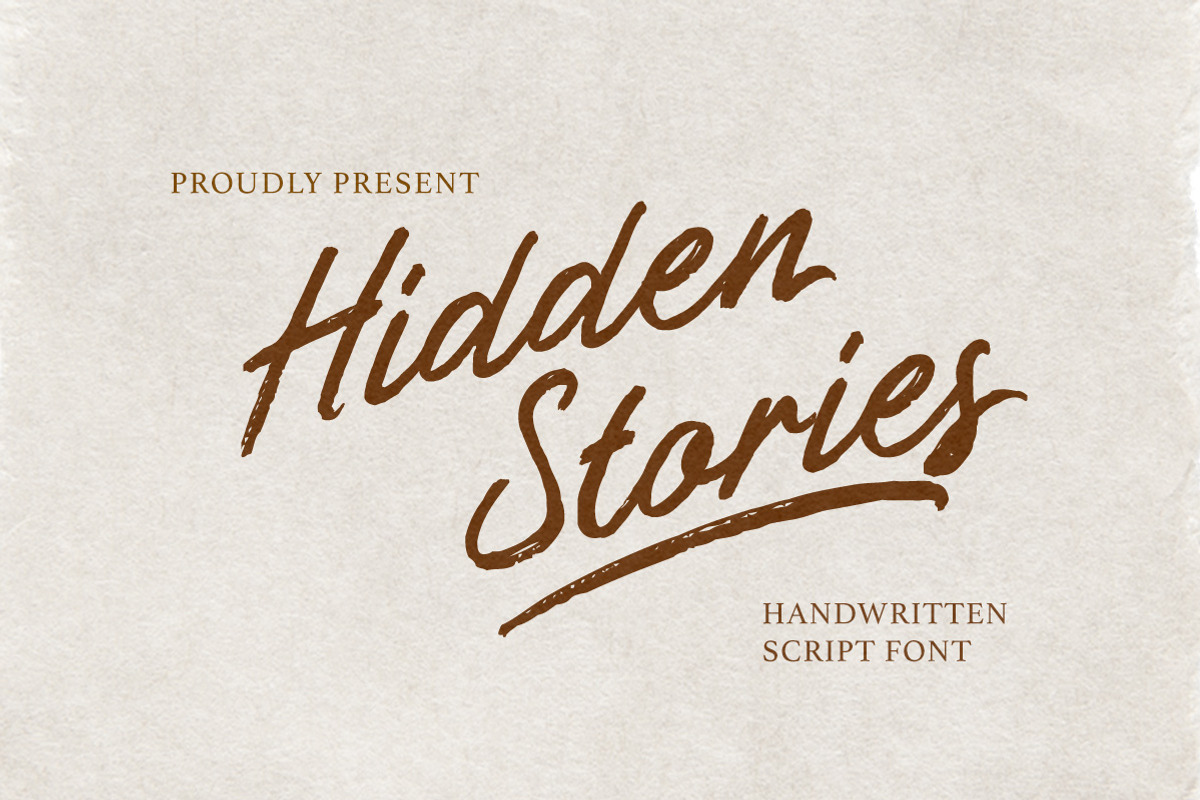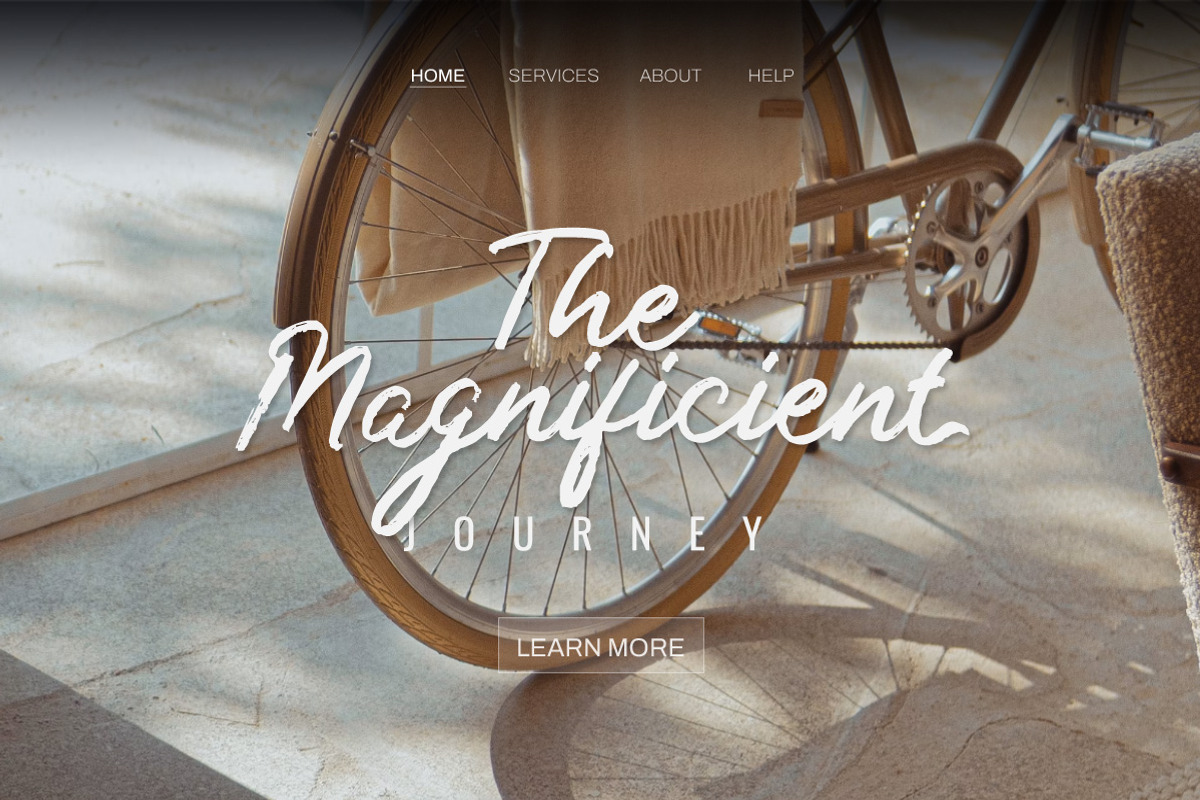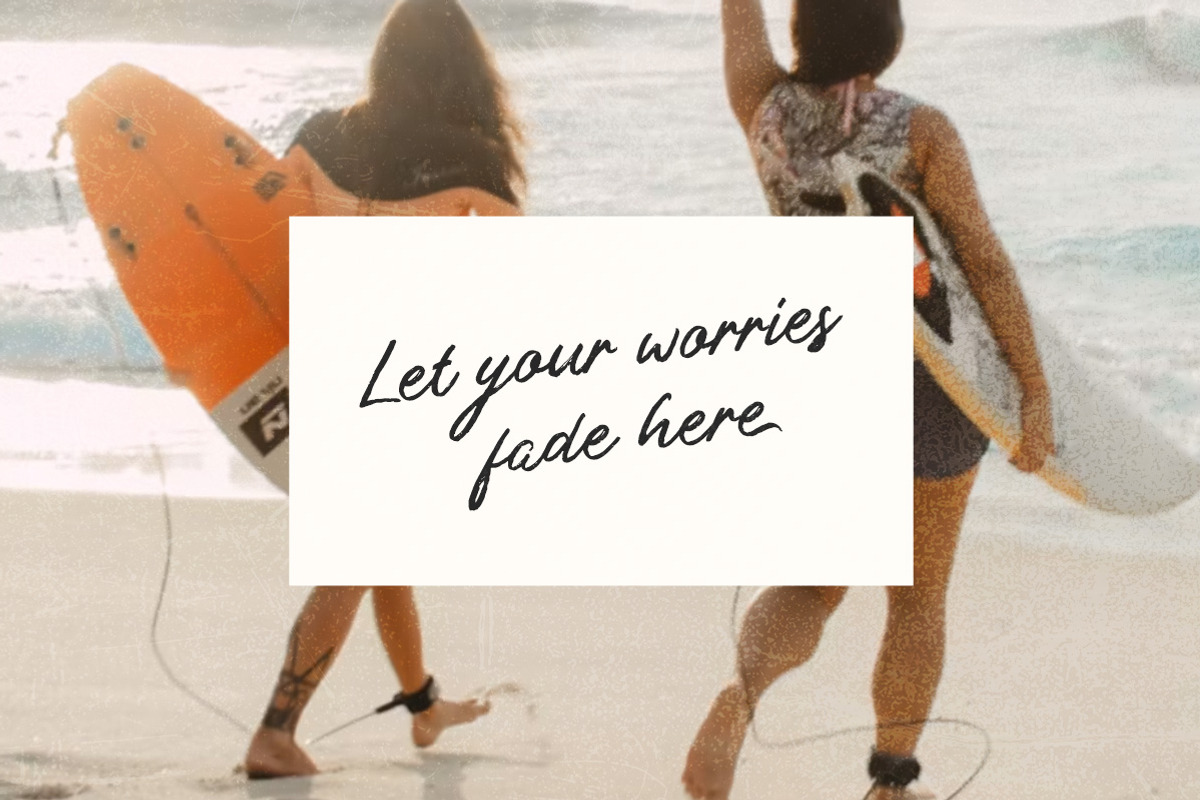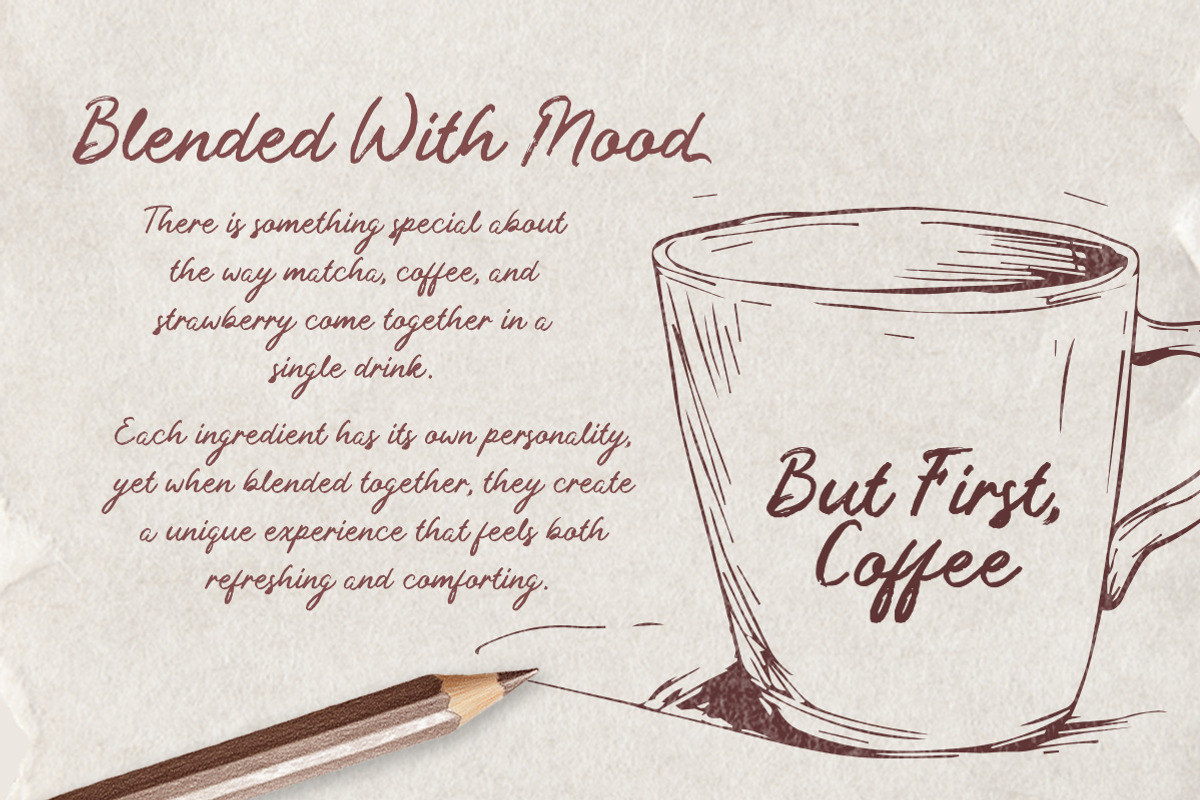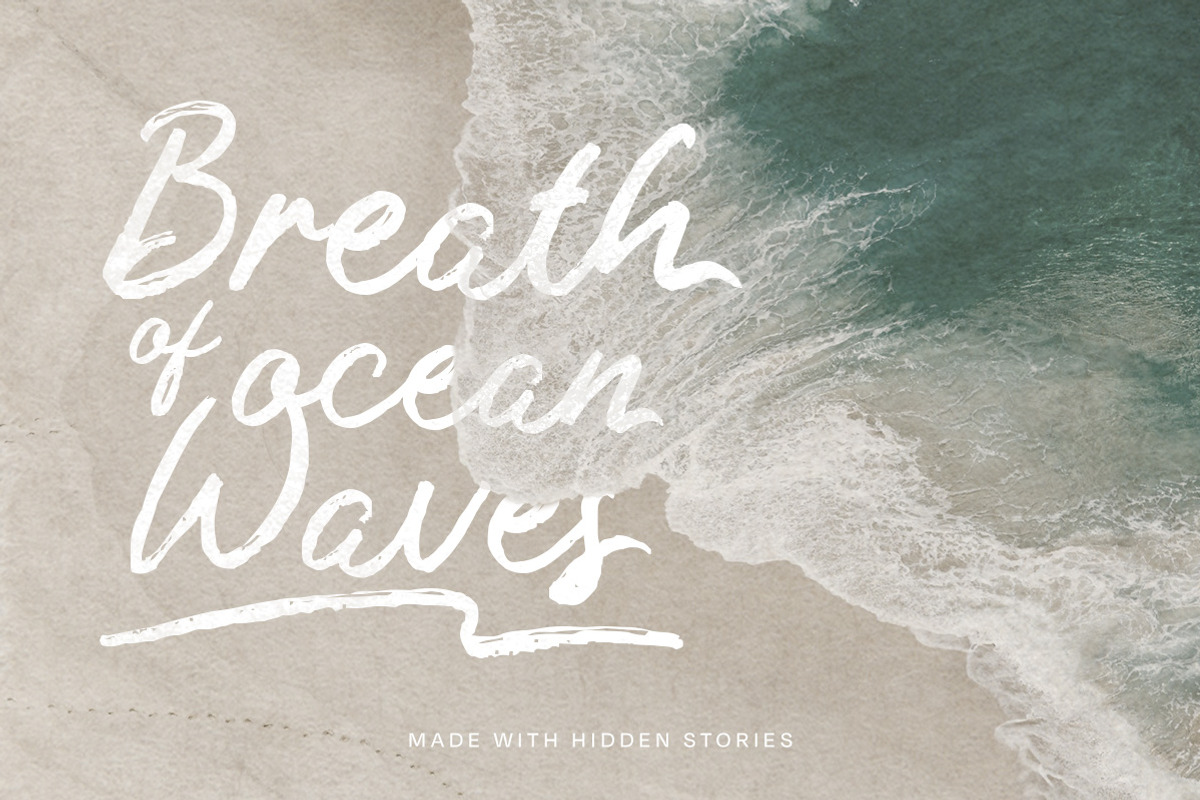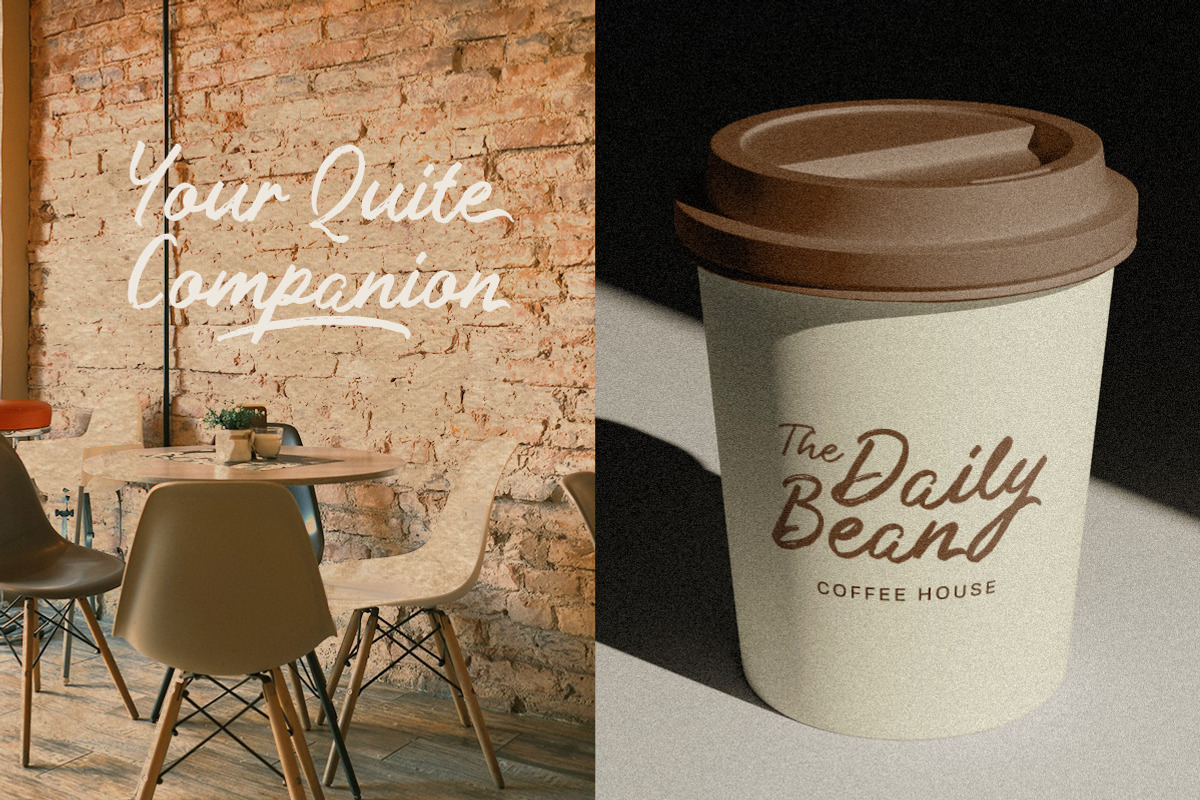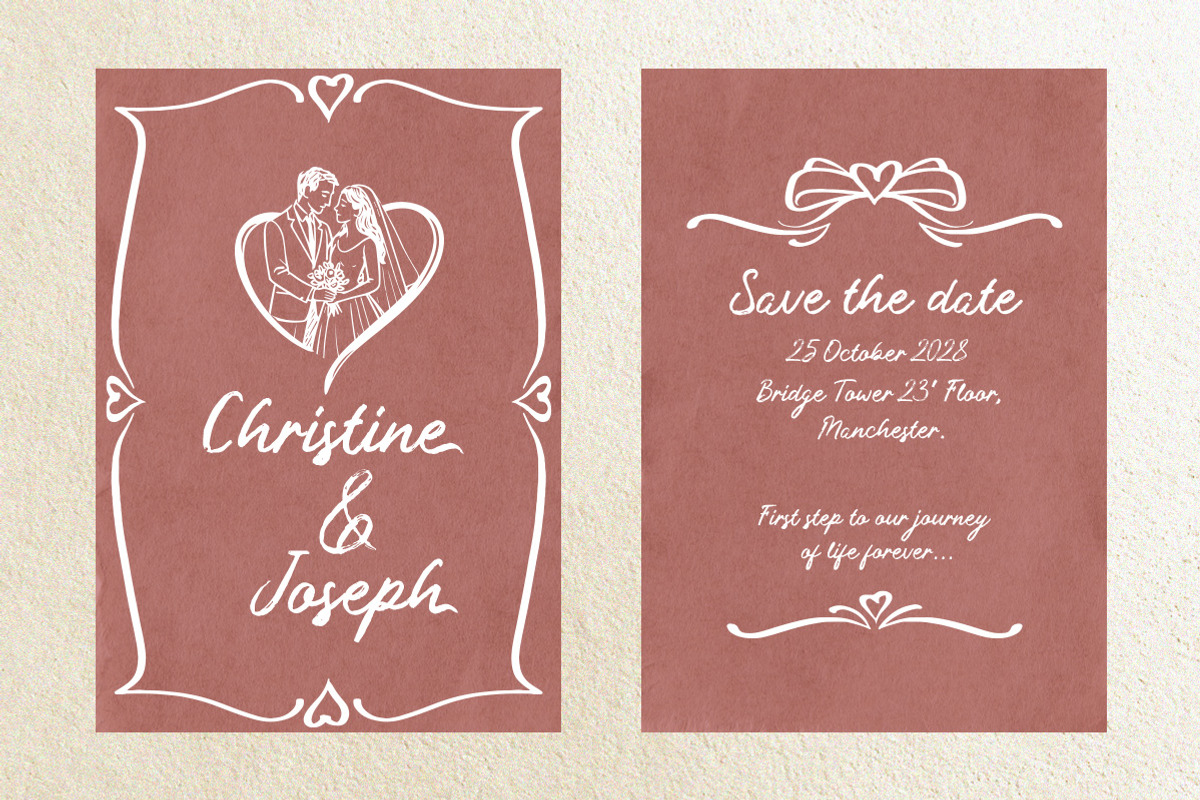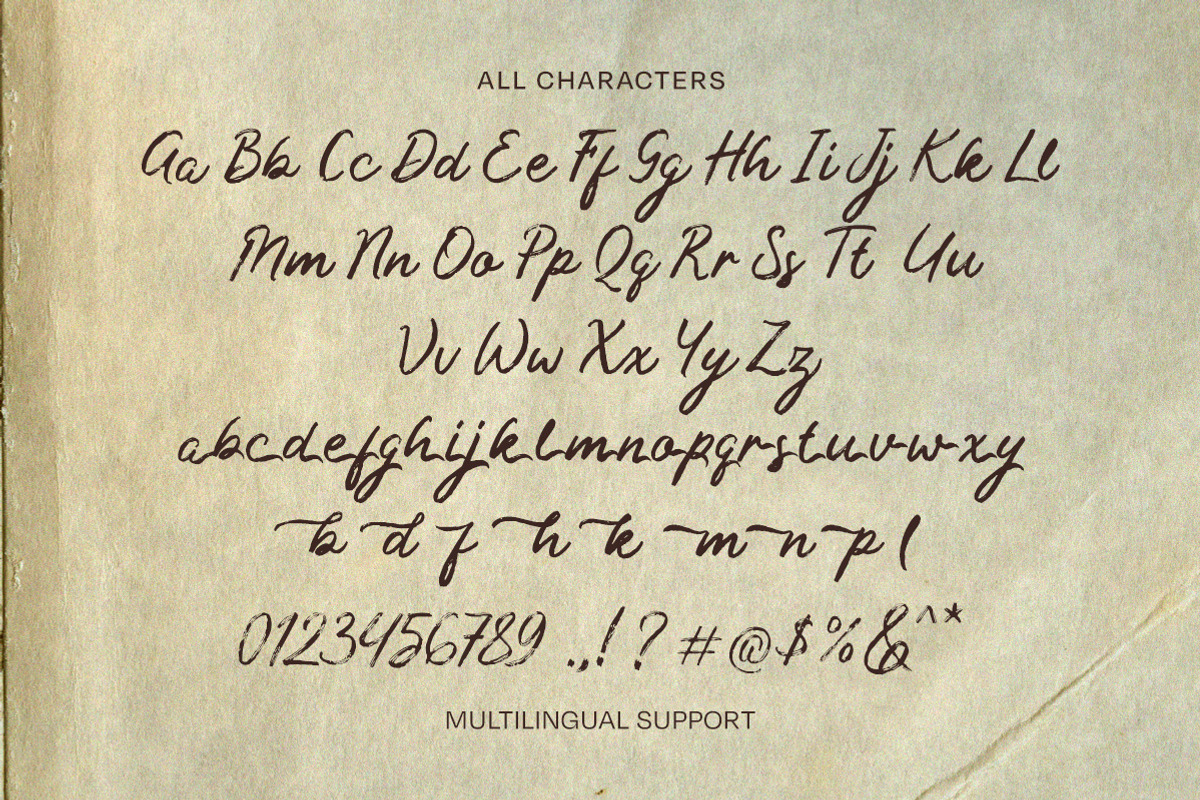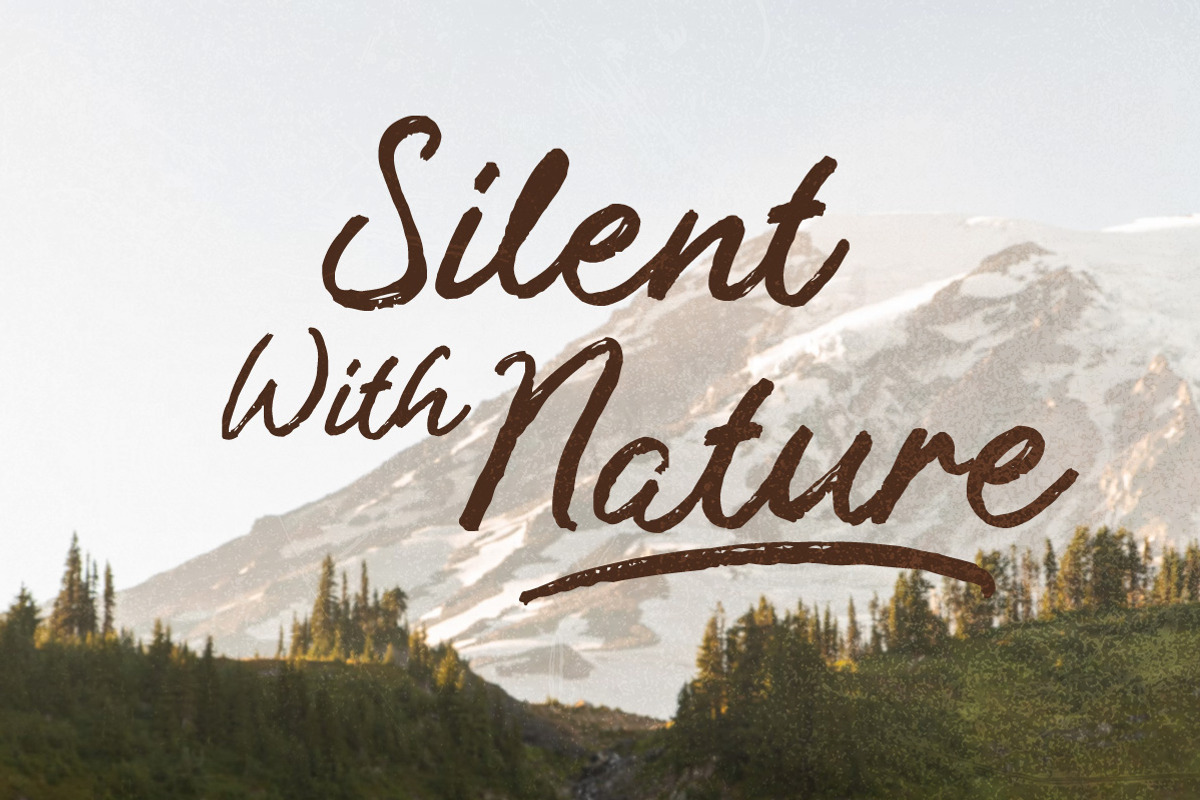
Hidden Stories Handwritten Script
Hidden Stories has the kind of rough, expressive handwriting that feels pulled straight from a sketchbook, with brush strokes and a beautifully imperfect texture. Its energetic movement gives every word a spontaneous, human quality, while the sweeping underline adds an extra touch of attitude and visual drama.
Uppercase & lowercase
Numbers and punctuation
Alternates & Ligatures